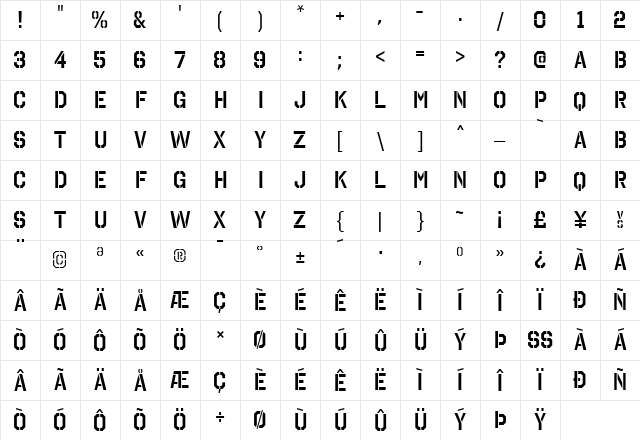
Octin Stencil SemiBold Free Font
Octin Stencil SemiBold
Style: SemiBold
Octin Stencil Family
Design Context for Octin Stencil
Octin Stencil borrows the utilitarian aesthetic of stencil lettering, with its characteristic cutaways and no-frills construction lending an industrial edge. Its bold stroke weight gives it real presence on the page.